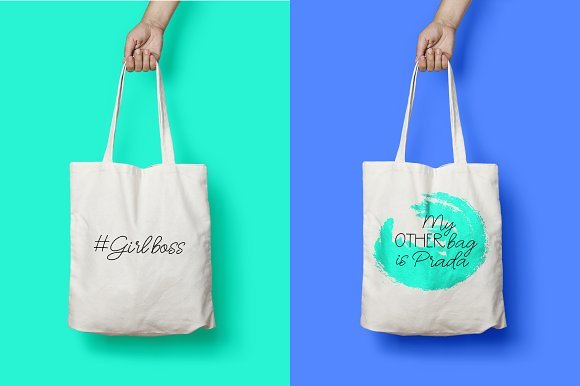
Oh Wonder Font Duo
Introducing Oh Wonder Font Duo! Oh Wonder designed by theinkaffair, this is a premium font, are sold on creativemarket, but it was great, it is free today for download. Meet Oh wonder, a two font family that includes a monoline fancy hand written cursive script and a monoline sans serif font, ideal for all things branding and packaging! Oh wonder is perfect for greeting cards, logos, apparel designs, home decor, prints, quotes and so much more!